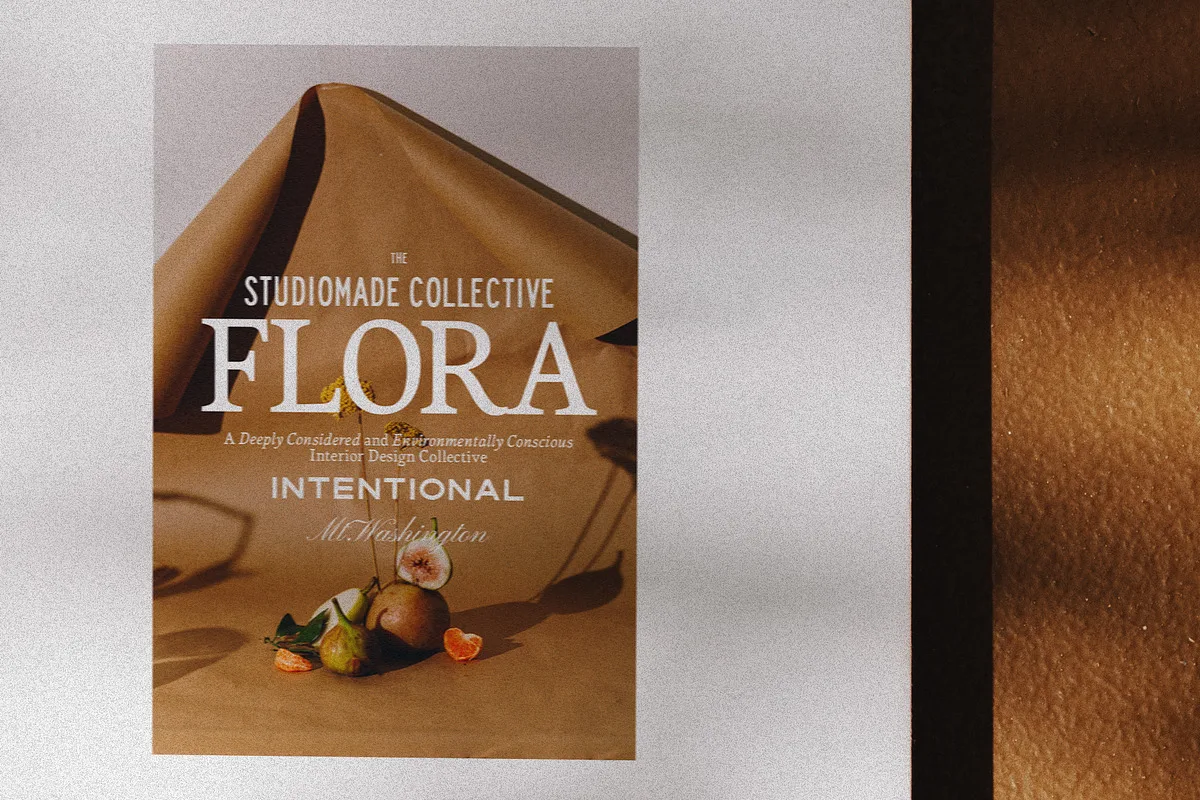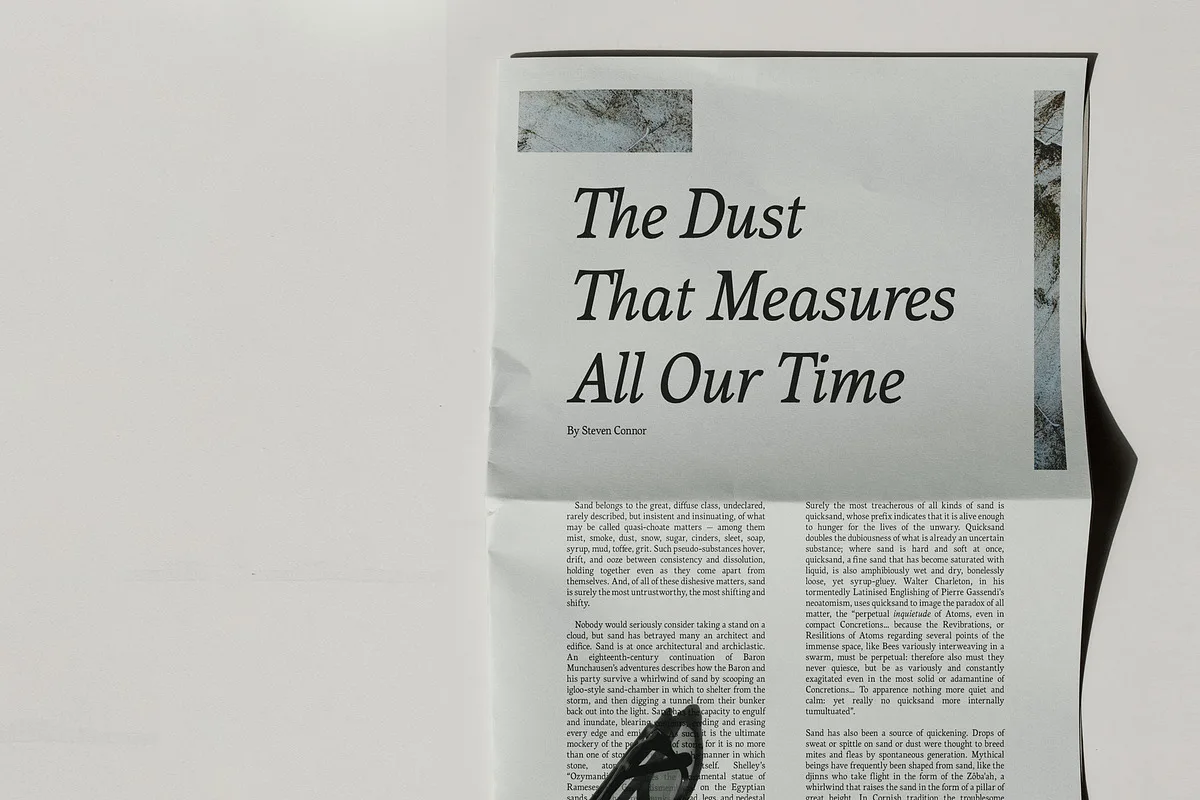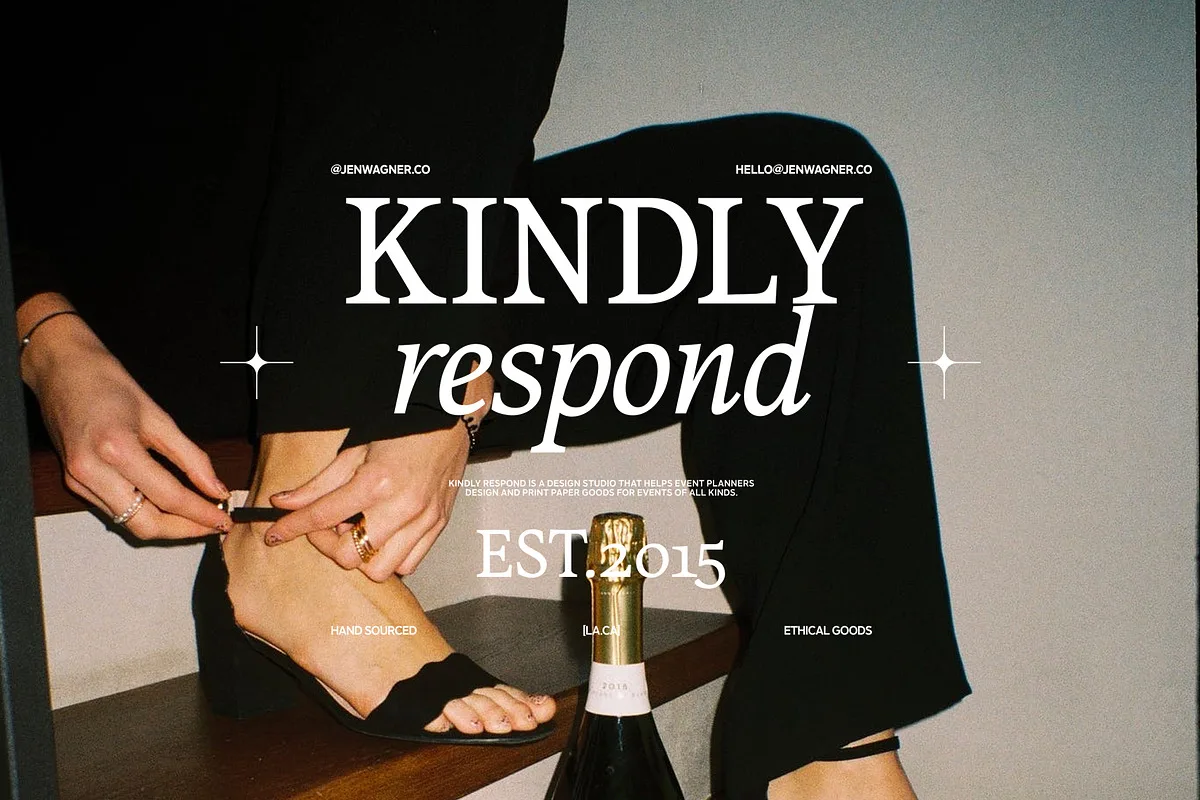
Sozzani is a clean text serif font designed for readability at large and small scales. Our primary assignment was to sketch and design a typeface that would work in text formats — like long paragraphs of body copy rather than logos and headers. Beautiful in long or short-form text at any scale, but also gorgeous for logos and headers.
It fits perfectly with invitation card designs, company logos, movie titles, movie names, business cards, book titles, brand names and various other designs.
Sozzani Clean Text Serif Font